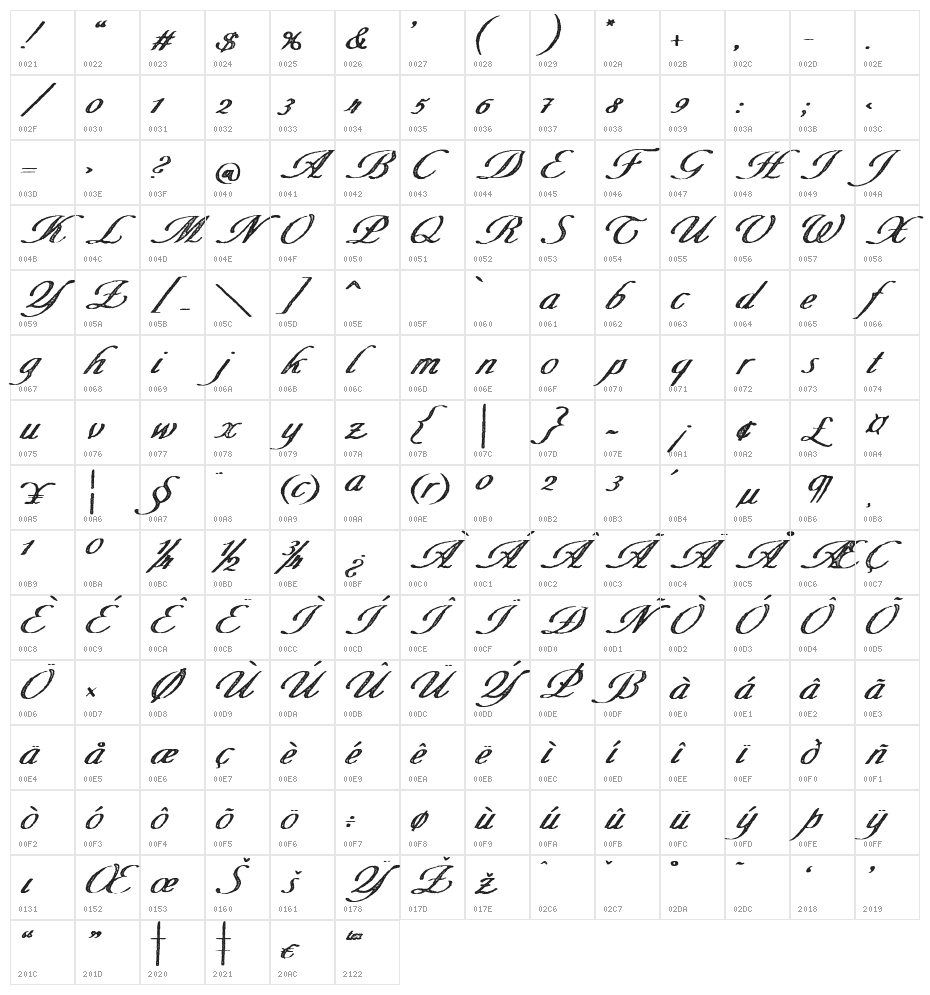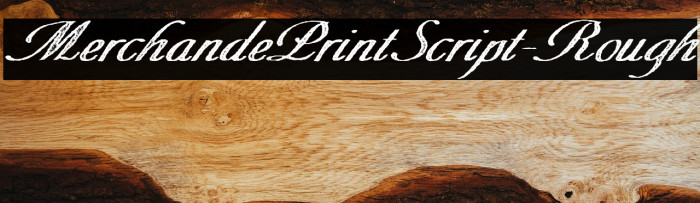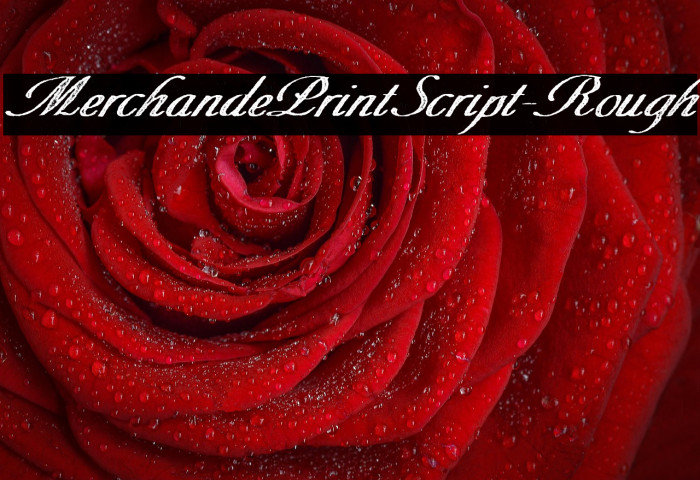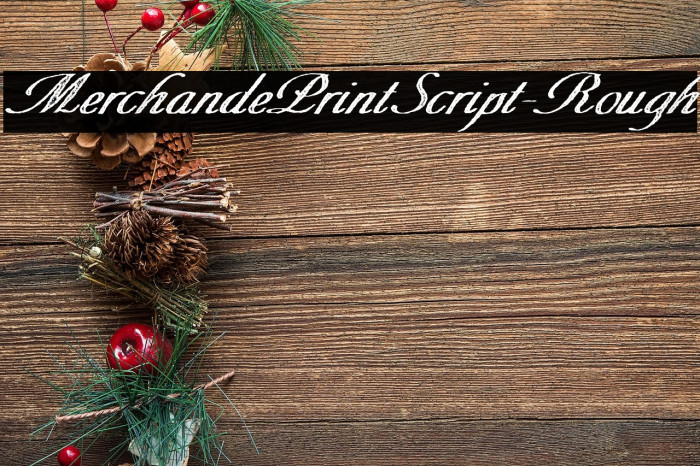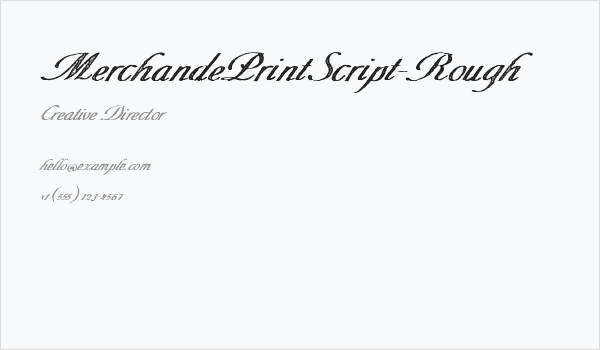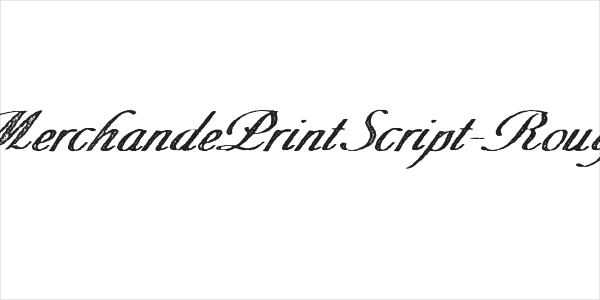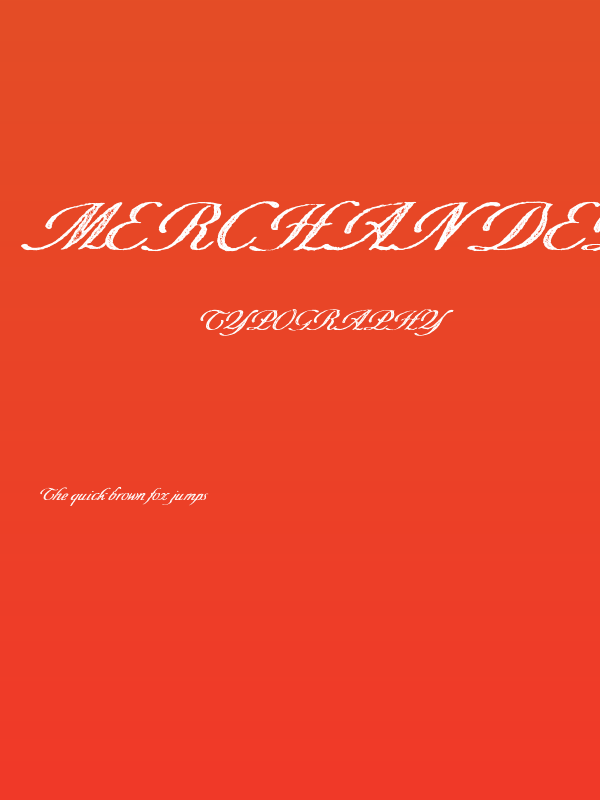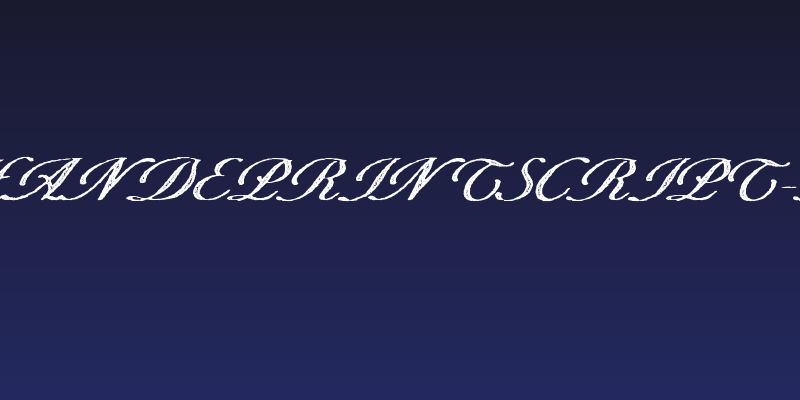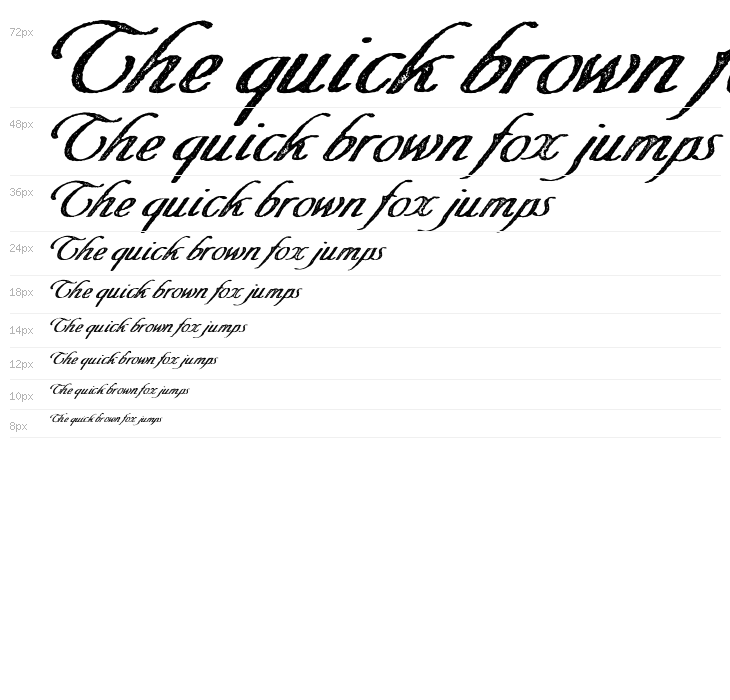
MerchandePrintScript-Rough Font
MerchandePrintScript-Rough Description
This font exudes a vintage charm with its rough, textured appearance, reminiscent of hand-printed scripts. The characters are elegantly crafted with flowing curves and a slightly distressed look, giving it an authentic, aged feel. The uppercase letters are particularly ornate, with flourishes that add a touch of sophistication. The lowercase letters maintain a consistent style, complementing the uppercase with their smooth, connected strokes. Numbers and special characters are equally detailed, ensuring a cohesive look across all text elements. This font is ideal for projects that require a touch of nostalgia and elegance.
| Overall Style | Vintage |
| Use Case | Logos, Decorative text, Invitations |
| Proposed Projects | Ideal for wedding invitations, vintage-themed branding, greeting cards, and decorative posters. |